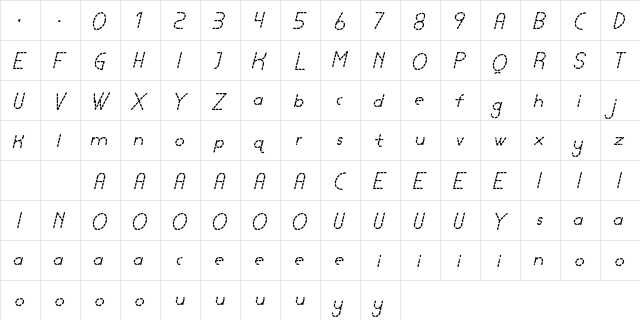
Lamborgini Italic Dash Regular
Design Context for Lamborgini Italic Dash Typeface
Lamborgini Italic Dash is a composed and adaptable typeface that performs quietly and consistently across a wide range of design contexts. The slanted form adds forward momentum and visual energy.
Pro Tip: Use Lamborgini Italic Dash for emphasis, pull quotes, and subheadings where its slanted energy can add rhythm to the layout.